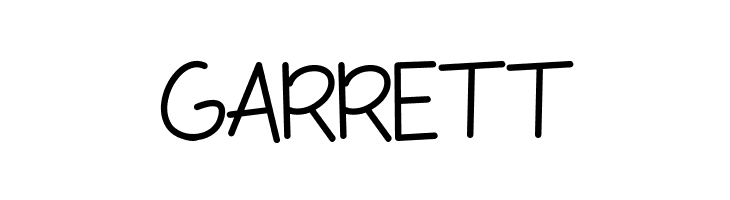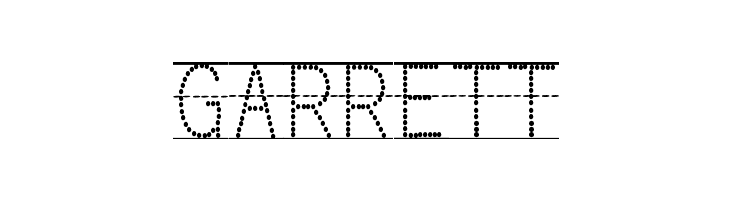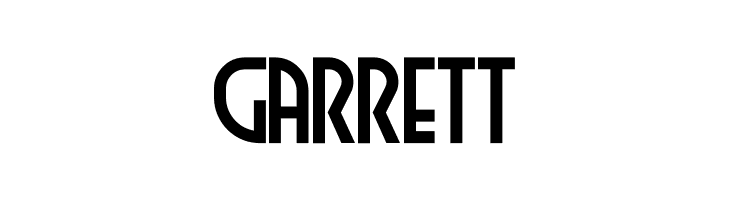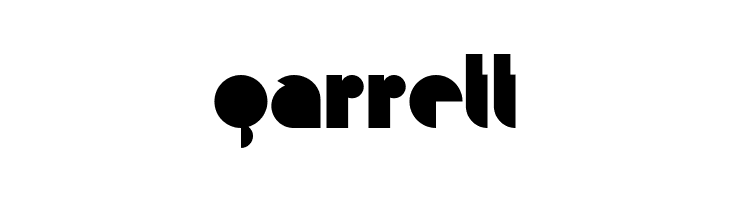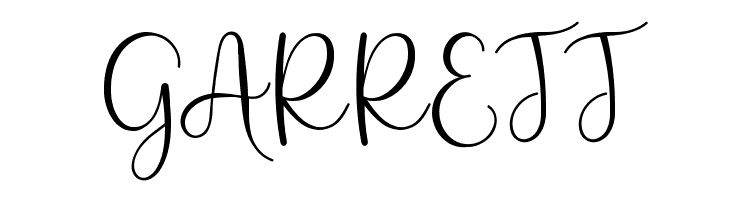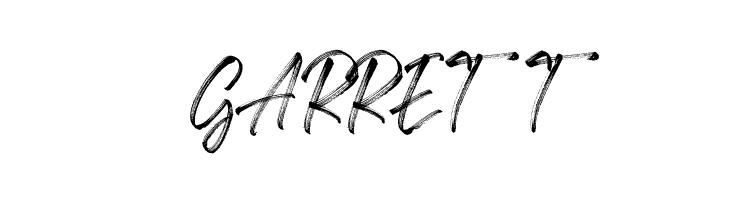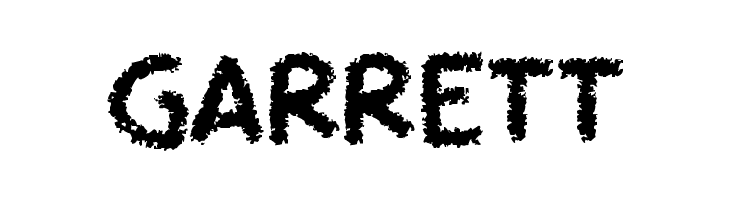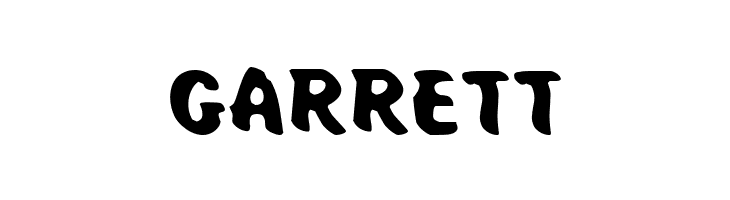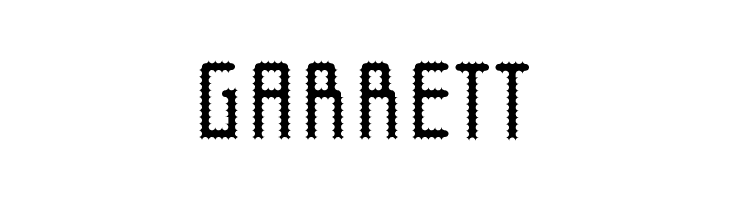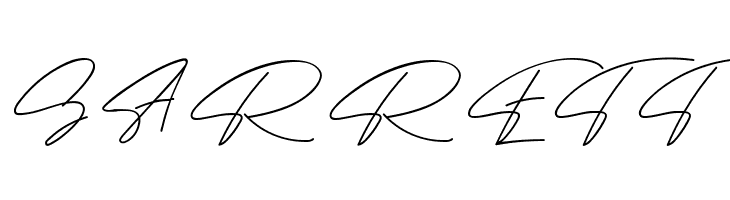
A decorative, pixelated font with jagged edges and a digital aesthetic.
A decorative font with a jagged, zigzag pattern, ideal for artistic projects.
A bold, geometric font with rounded edges and uniform strokes.
A bold, geometric font with strong, block-like shapes and high contrast.
A bold, geometric font with a three-dimensional shadow effect.
A bold, geometric font with a 3D shadow effect and modern style.
An artistic and dynamic script font with dramatic contrast and fluid strokes.
A fragmented, glitch-style font with sharp, angular cuts and overlapping segments.
A distressed, grunge-style font with a bold, rugged appearance.
A dynamic brush script font with fluid, expressive strokes.
Bold and playful font with dynamic style.
A bold, playful font with thick, rounded strokes and a hand-drawn appearance.
A playful, textured font with a chalkboard-inspired, hand-drawn style.
A playful, handwritten font with a casual and dynamic style.
An elegant script font with intricate swashes and flowing lines.
A playful, elegant cursive script font with flowing, connected characters.
A bold, energetic script font with flowing, connected strokes and playful swashes.
A bold, handwritten font with playful, irregular strokes.
A dotted, educational font ideal for handwriting practice.
A bold, flowing script font with a dynamic, handwritten style.
A graceful and elegant script font with flowing, connected letters.
A bold, ornate Blackletter font with intricate, angular letterforms.
An ornate, medieval-inspired font with decorative flourishes and structured character design.
A decorative gothic-style font with ornate and intricate details.
A sophisticated script font with flowing, ornate cursive letters and elegant swashes.
A playful and whimsical font combining script and decorative elements.
A flowing, cursive script with elegant, handwritten characteristics.